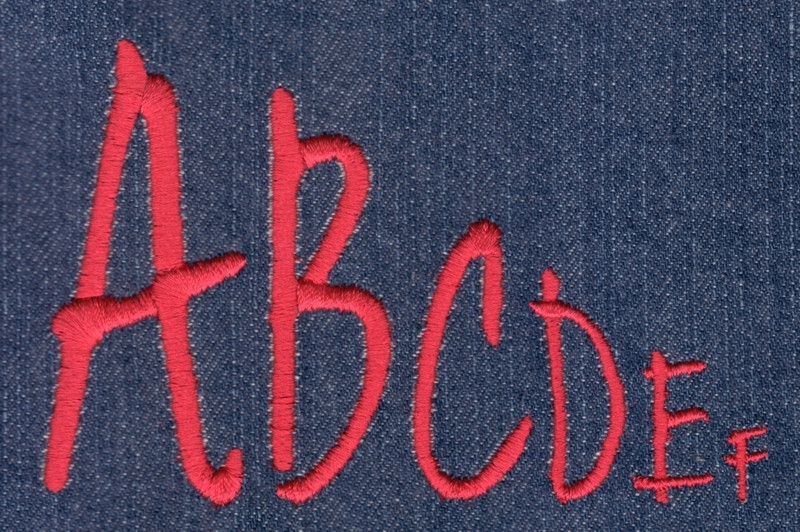
374 Stanley Satin Font
Stanley Satin Font comes in 0.5", 1", 1.5", 2", 2.5" & 3" heights based on the capital "A". All sizes finished in Satin Stitch and include uppercase letters, lowercase letters, numbers and four punctuation marks.